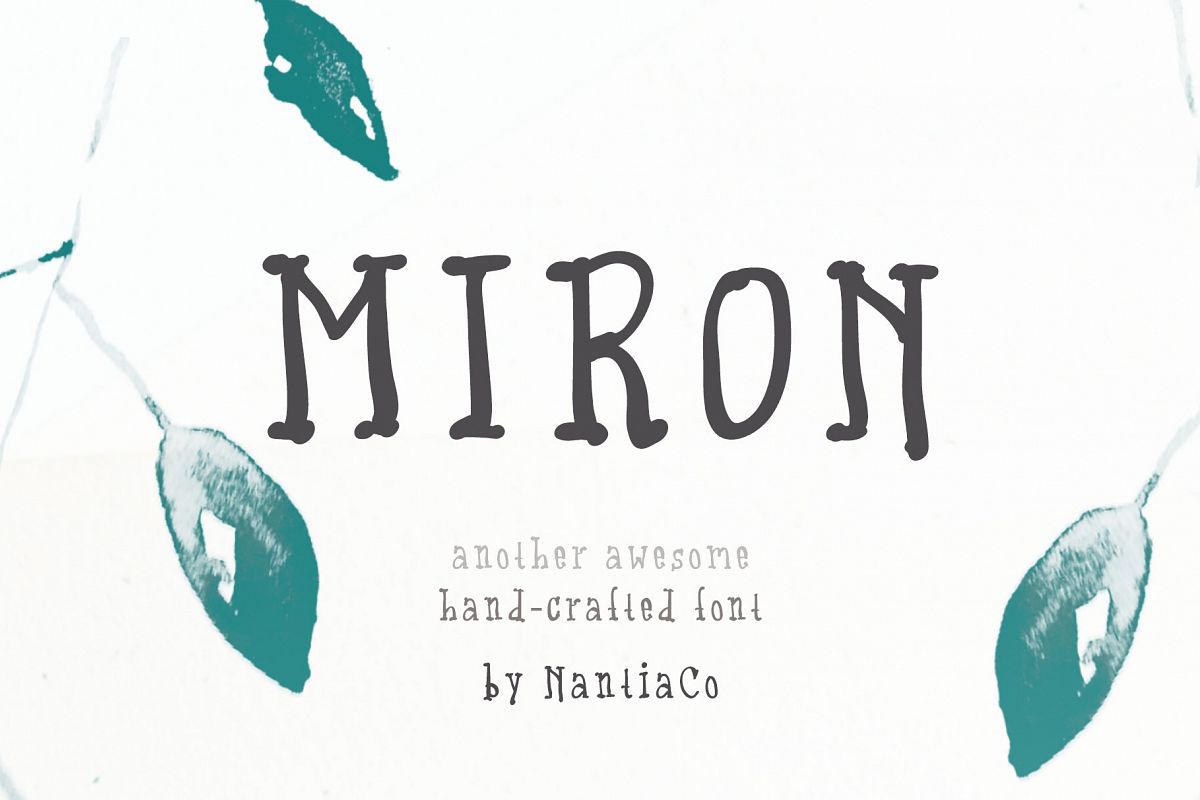
Miron Font Another Awesome Hand-Crafted Font
Miron Font Another Awesome Hand-Crafted Font is a 100% hand-drawn decorative typeface with which you can achieve a childish handwritten-type feeling. Also, this typeface has a really nice flow so you use it in a large text if you want to give them a touch of personality. In fact, this multilingual font includes diacritics for a wide range of language support, with Greek (of course), Cyrillic and Latin characters and diacritics. Miron Font is perfect for your graphic design needs like social media quotes, blog headers, posters, art, and school projects and why not for packaging, and logotype. In conclusion, Miron Font is a handwriting typeface with:
• Extended Latin character set,
• Cyrillic character set
• Greek character set,
• punctuation marks and
• numbers.